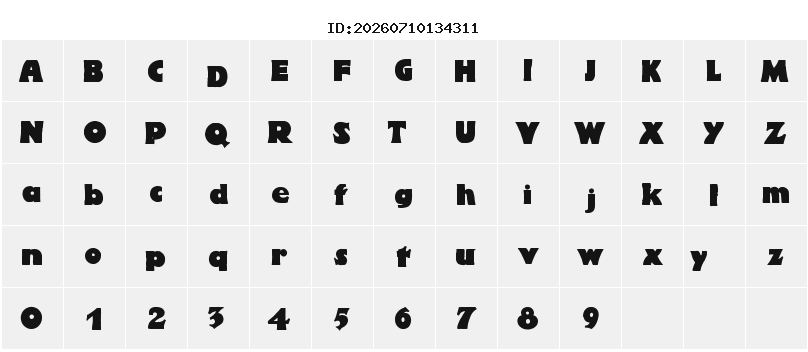
Fat Lady by Marta van Eck Preview
• Font Name: Fat Lady by Marta van Eck
• Full Font Name: Fat Lady by Marta van Eck
• Description: Fat and clumsy font.
About Fat Lady by Marta van Eck.ttf
Fat Lady by Marta van Eck.ttf is a modern, elegant sans-serif font designed for ultimate readability and visual harmony. Perfect for branding, headlines, web design, and print materials.